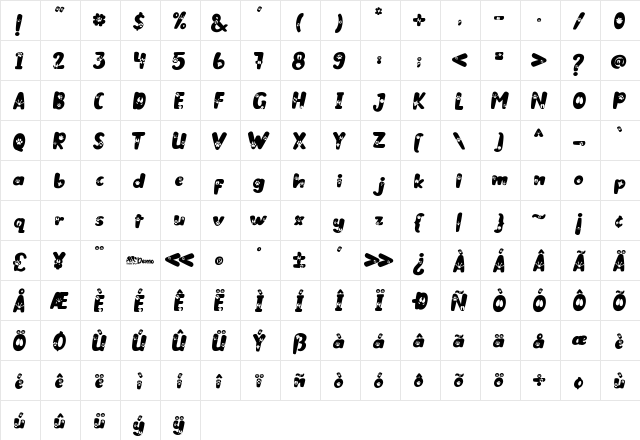
Animal Paws Regular
Design Context for Animal Paws Typeface
Animal Paws is a composed and adaptable typeface that performs quietly and consistently across a wide range of design contexts.